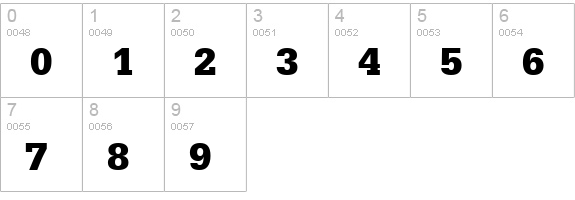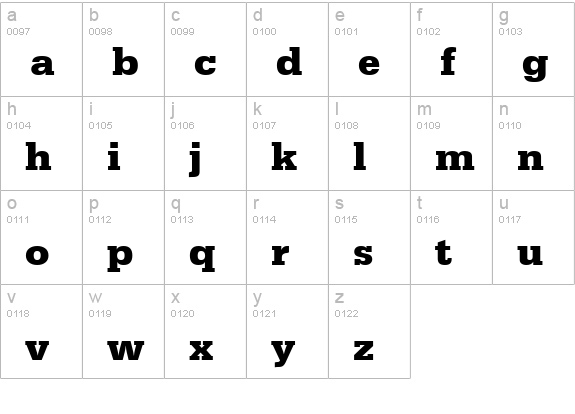
URWEgyptienneT Bold Font Details
URWEgyptienneT Bold is a strong, high-contrast variant in the URWEgyptienneT typeface family \xE2\x80\x94 well suited to headlines, attention-grabbing titles, and strong calls-to-action.
URWEgyptienneT Bold is a striking and bold font that effortlessly commands attention with its powerful presence. With its strong and robust letterforms, this font exudes confidence and authority, making it perfect for headlines, titles, and any design that requires a touch of boldness. The URWEgyptienneT Bold font is characterized by its clean lines and sharp edges, creating a modern and sophisticated aesthetic that is both timeless and versatile. Its bold weight adds an extra level of impact, ensuring that your message will be communicated with clarity and impact. What sets URWEgyptienneT Bold apart is that it is freely available to download at FontsMarket.com. This means that you can easily access and incorporate this font into your designs without any additional cost. Whether you are a professional designer or a hobbyist, having access to high-quality fonts like URWEgyptienneT Bold for free is a valuable resource that can elevate your creative projects to new heights. The versatility of URWEgyptienneT Bold is evident in its ability to complement a wide range of design styles and themes. Whether you are working on a sleek and modern website, a vintage-inspired poster, or a minimalist branding project, this font will effortlessly adapt to your vision and enhance the overall aesthetic. URWEgyptienneT Bold is designed with legibility in mind, ensuring that your text remains clear and easy to read even at smaller sizes. This makes it an ideal choice for various applications, including print materials, digital designs, and signage. In conclusion, URWEgyptienneT Bold is a powerful and impactful font that offers a bold and confident aesthetic. Its freely available download at FontsMarket.com makes it accessible to all designers, regardless of their level of expertise. Incorporate URWEgyptienneT Bold into your designs to add a touch of boldness and authority, and watch as your creations come to life with this exceptional font.